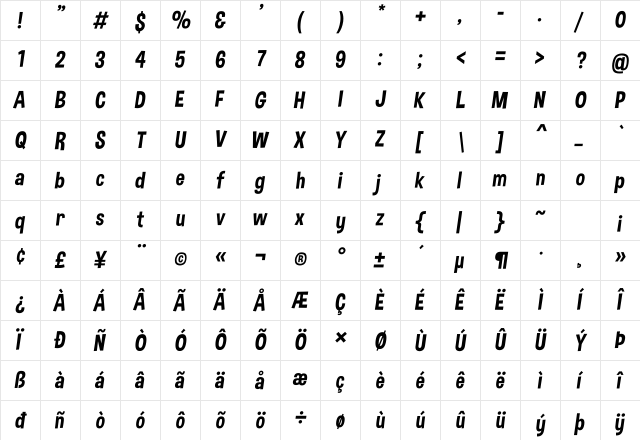
Dimbo Italic
| Designer | Jayvee D. Enaguas (Grand Chaos) |
Design Context for Dimbo Typeface
Dimbo offers clean, dependable letterforms without strong stylistic allegiance, making it a practical choice for designers who need flexibility. Its italic angle brings a sense of urgency and motion to the letterforms.
Pro Tip: Use Dimbo for emphasis, pull quotes, and subheadings where its slanted energy can add rhythm to the layout.